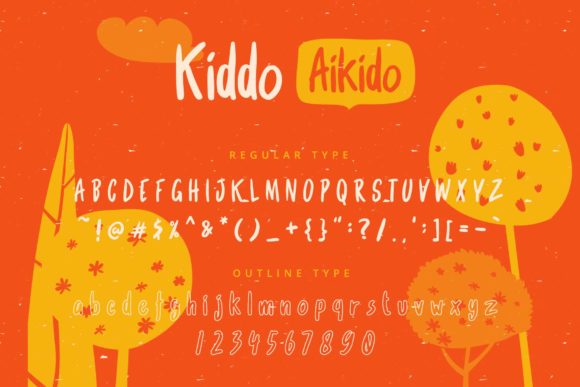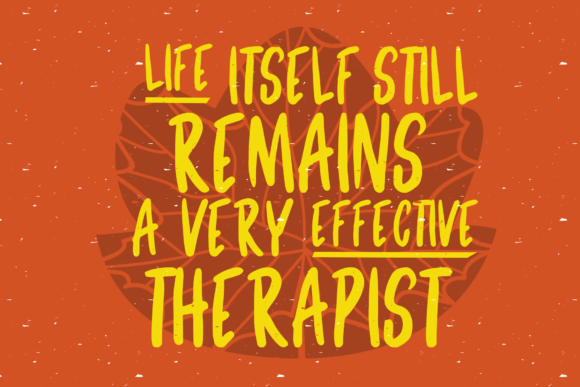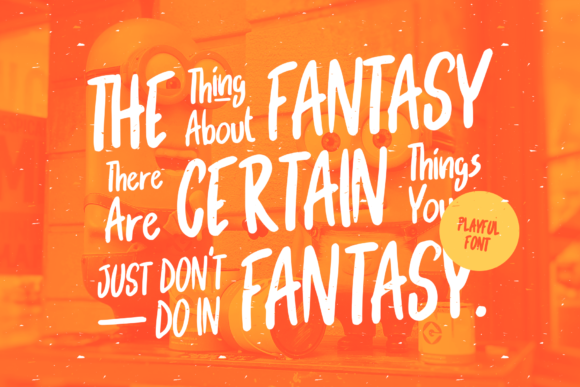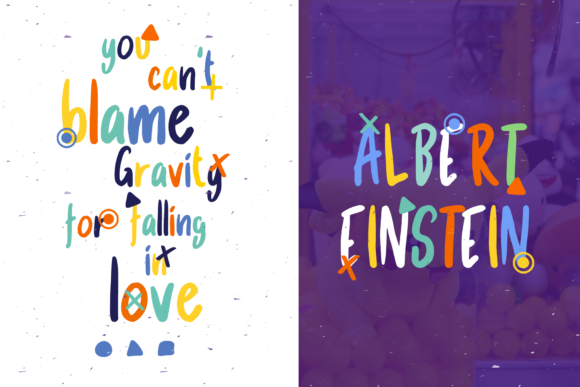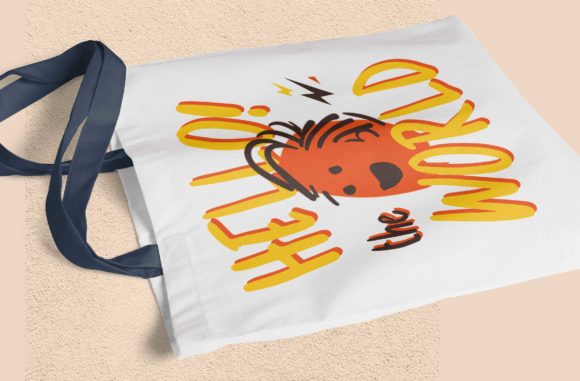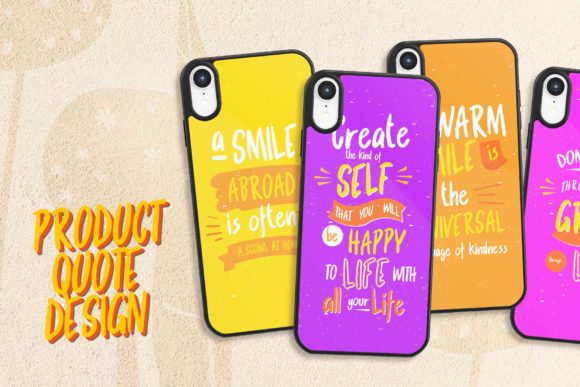
Introduction to Kiddo Aikiddo Font
Who hasn’t experienced that moment of pure creative joy when a new idea suddenly pops into your head, and you just can’t wait to bring it to life? For designers, this moment is a regular occurrence, and it’s exactly what makes our job so exciting. But, sometimes, it’s not just about the idea itself, but also about the tools we use to express it. That’s where the perfect design resource comes in – something that can add a touch of magic to our creations and make them truly stand out.
Enter the Kiddo Aikiddo Font, a delightful display font that embodies the essence of fun, quirkiness, and authenticity. With its unique playfulness, this enchanting font is sure to brighten up any crafting project, making it a valuable addition to any designer’s toolkit.
Key Features of Kiddo Aikiddo Font
- High-quality design resource ideal for creative projects requiring a playful and modern aesthetic.
- Features a transparent background, allowing for seamless integration with various design elements and backgrounds.
- Designed to be versatile, making it suitable for a wide range of applications, from digital graphics to print materials.
- High-resolution design, ensuring crisp and clear display on various devices and screen sizes.
- Perfect for designers and artists seeking a unique and eye-catching font for their creative projects.
Honest Review: Kiddo Aikiddo Font
I recently had the chance to work with the Kiddo Aikiddo Font for a creative project and I must say, it was a delightful experience. This free download is definitely a great design resource to have in your toolkit.
Here are some things that stood out to me:
- ✨ The high quality of the font is evident in its crisp lines and smooth texture, making it perfect for digital design projects.
- ✨ The transparent background option allows for seamless integration into any design, giving you complete creative control.
- ✨ The font is highly customizable, with a wide range of styles and sizes to choose from.
- ⚠️ The font may not be suitable for print design projects due to its digital origins.
- ⚠️ The font may not be compatible with all operating systems or software.
Overall, I was impressed with the Kiddo Aikiddo Font and would highly recommend it to designers looking for a high-quality, free design resource. Just be sure to consider the limitations before using it in your next creative project.
To get the most out of the Kiddo Aikiddo Font, use it in combination with other design elements such as bright colors and bold graphics. This will create a visually appealing design that is sure to grab attention. Additionally, experiment with different font sizes and styles to add depth and interest to your design.
The Kiddo Aikiddo Font is commonly used in a variety of design projects, including children’s book illustrations, party invitations, and social media graphics. Its playful and fun design makes it perfect for creating engaging and eye-catching designs that are sure to delight your audience.